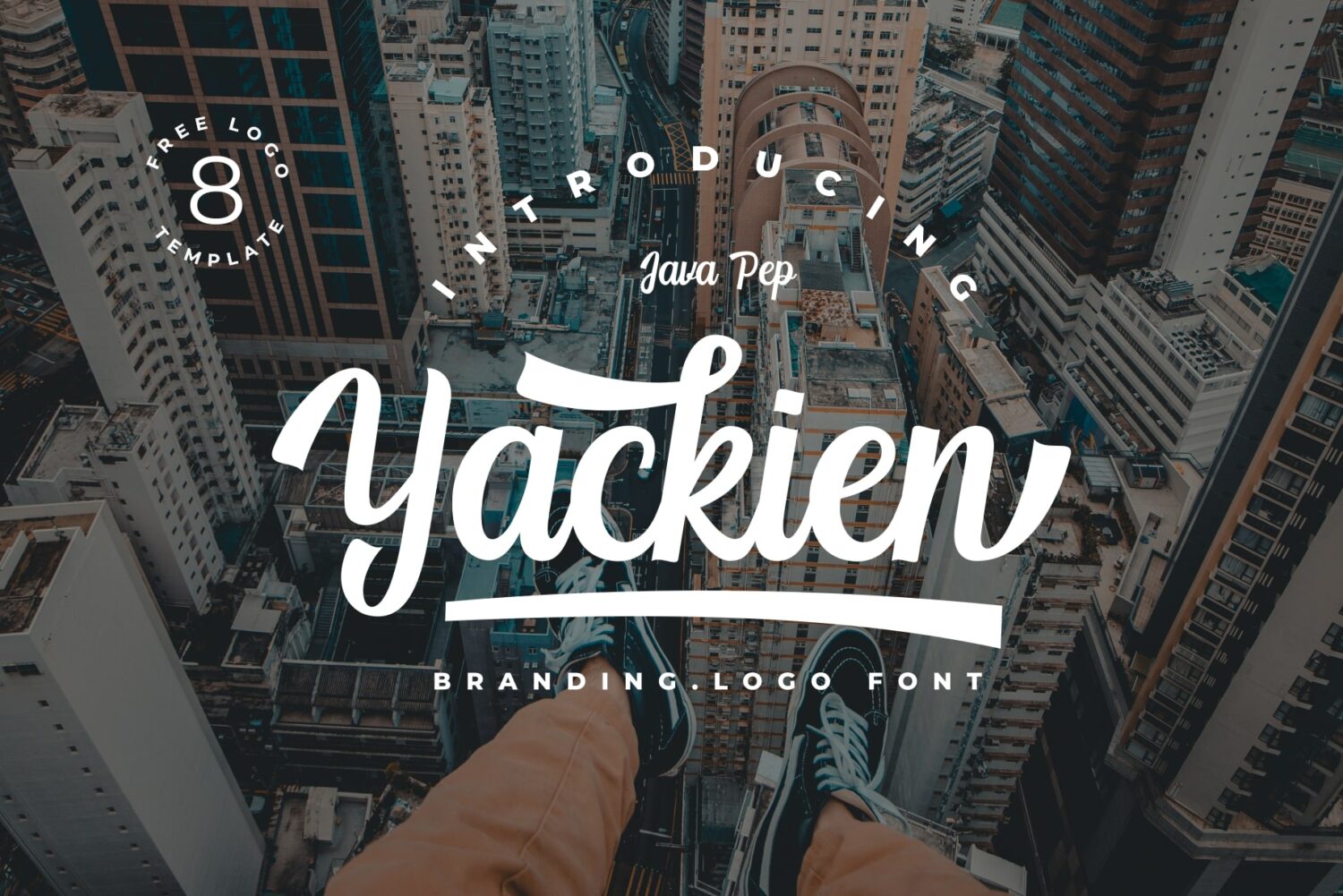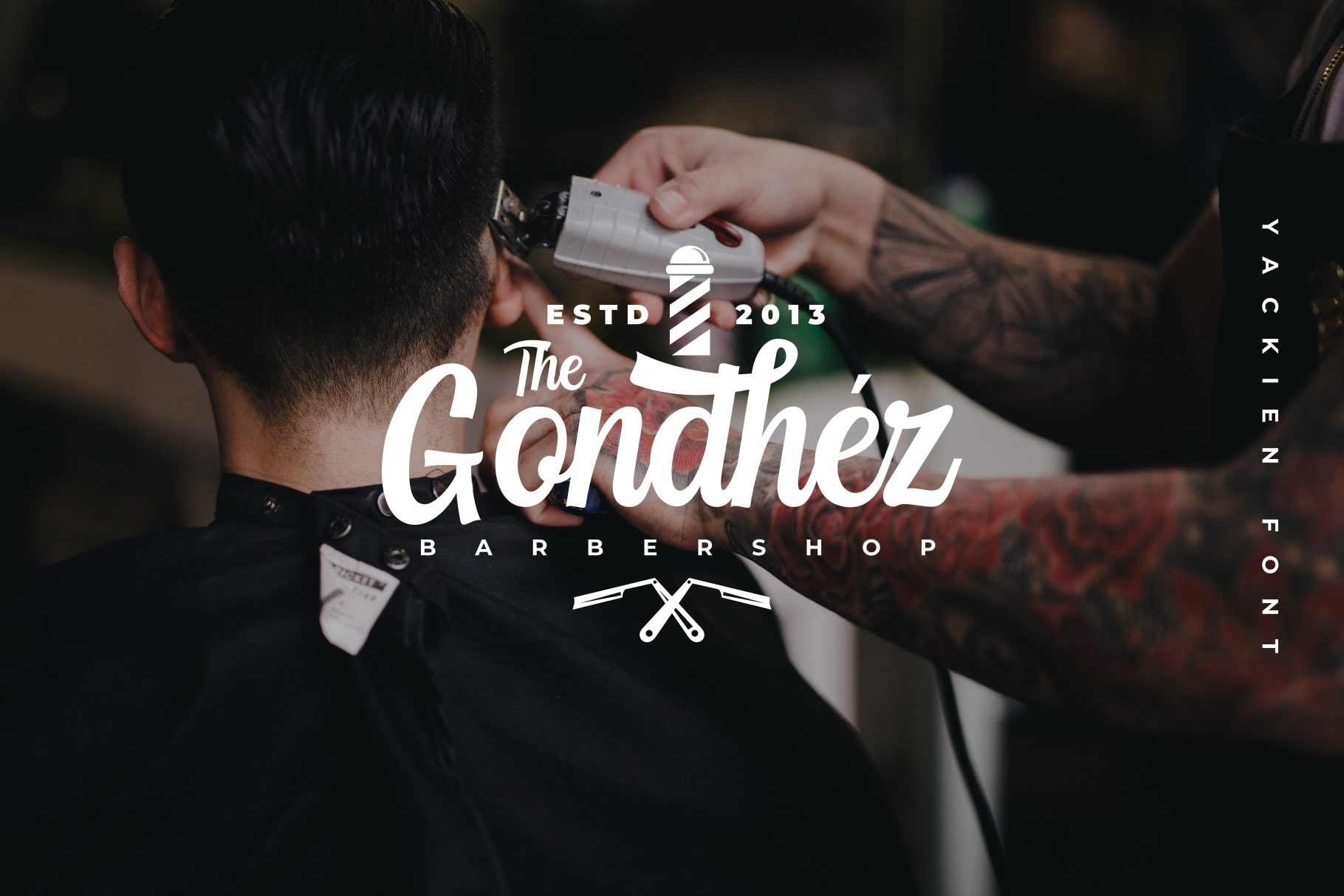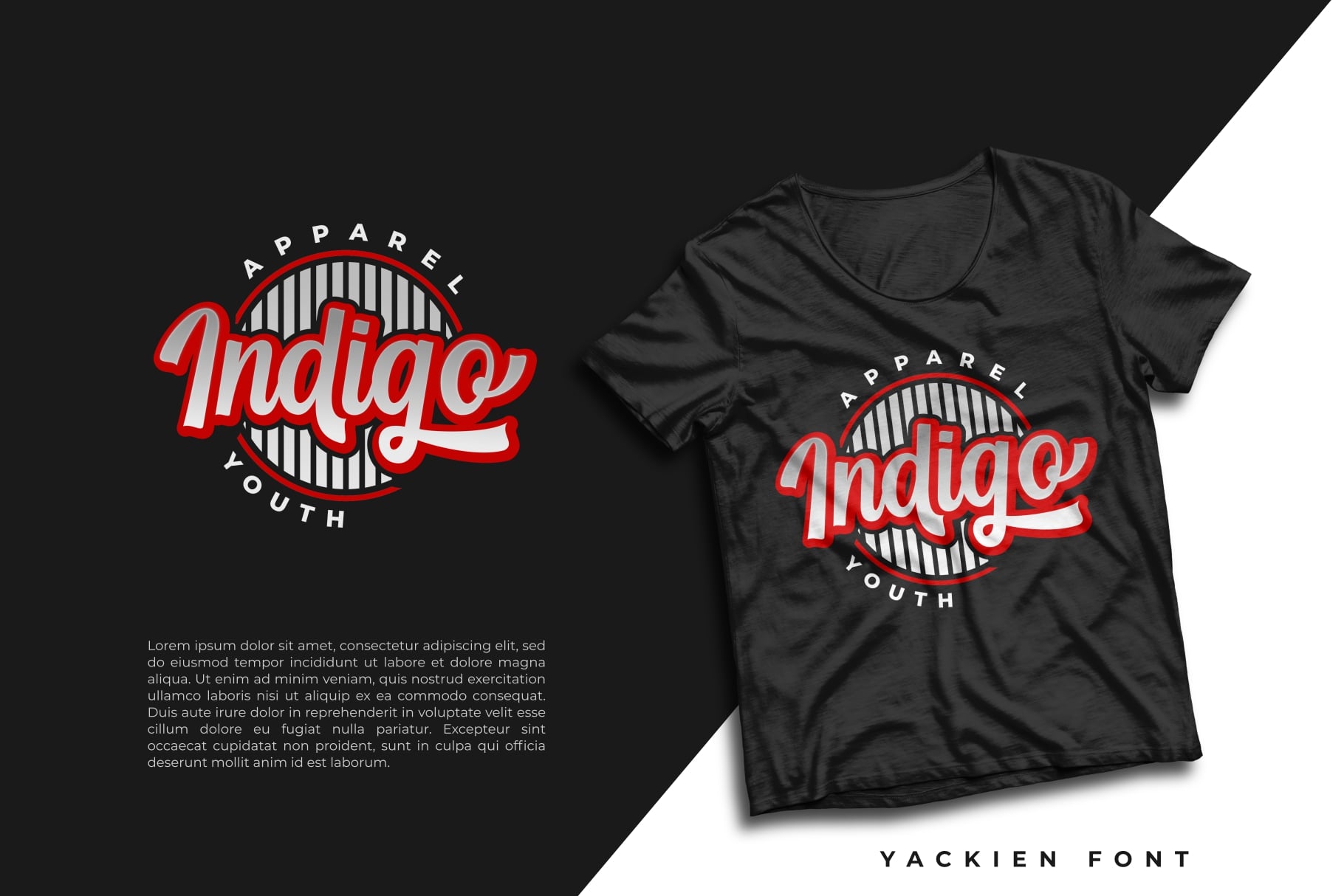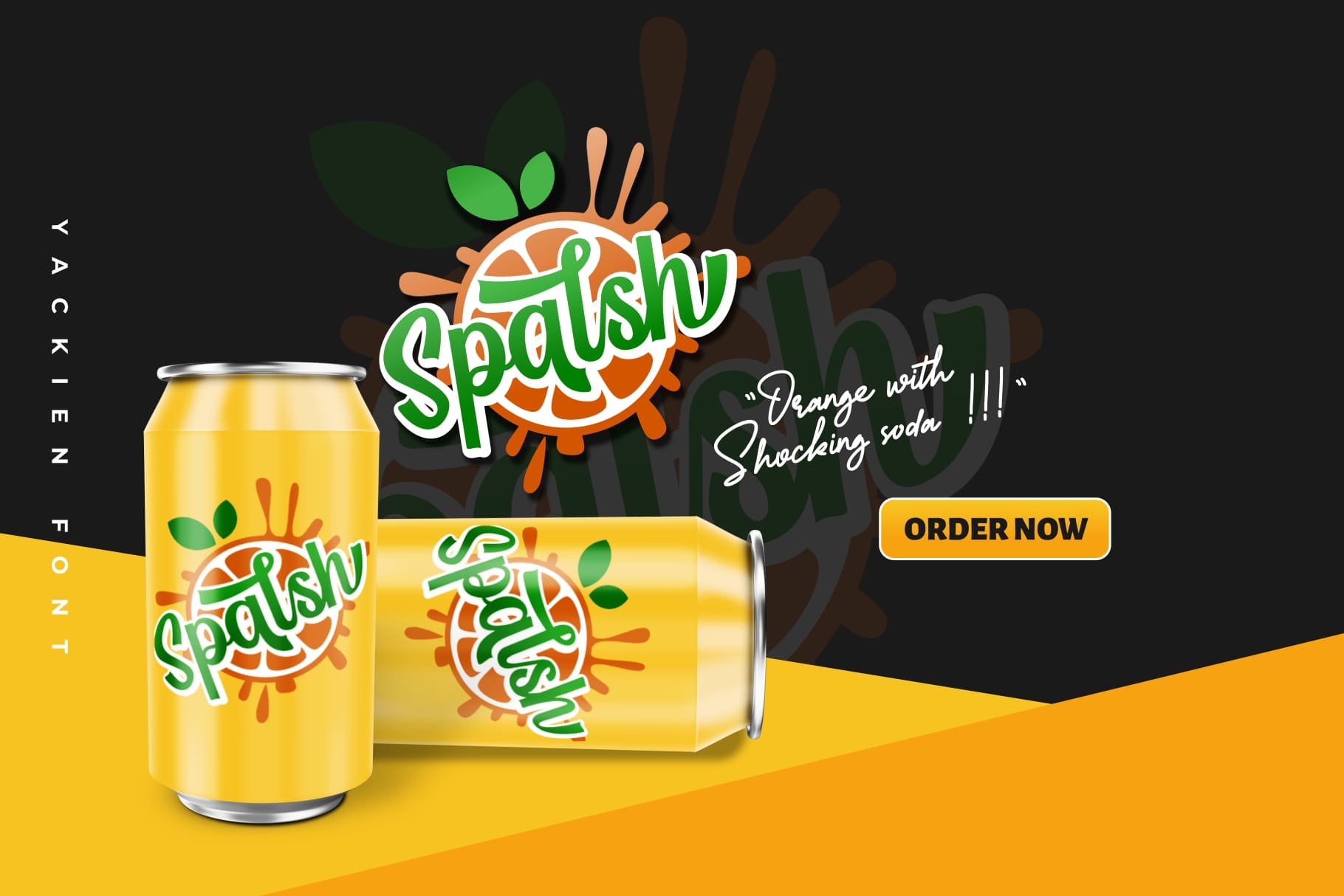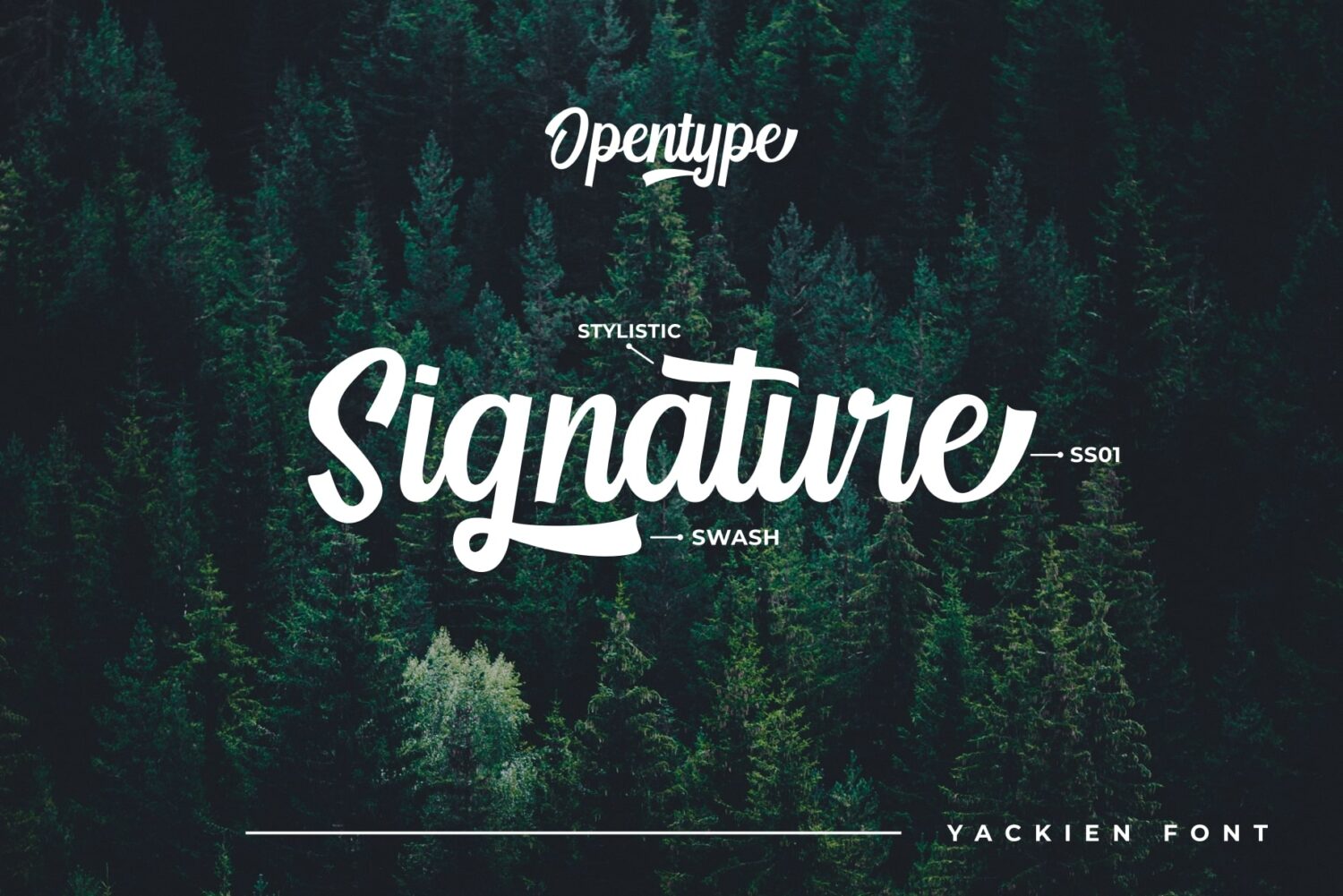
Yackien Free Font
Yackien Free Font made for branding and logo font purposes, but still elegant for other project designs. Yackien (yakin) is the Indonesian language that the meaning is believed, trust, and convincing. So Yackien font can give off an aura of trust, believed, convincing, in your brand’s logo and design. This free typeface was designed by a talented Java Pep. If you like it don’t forget to check out the full version.